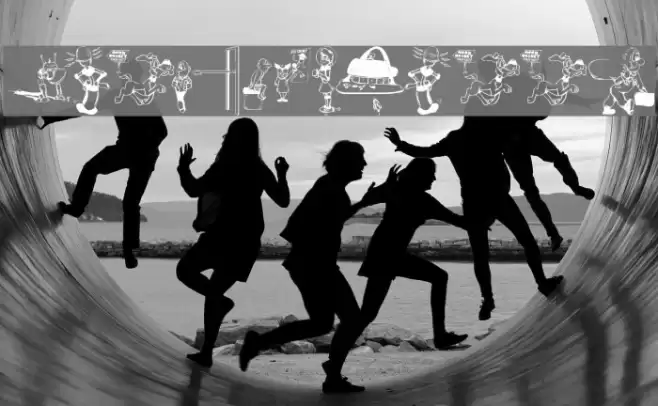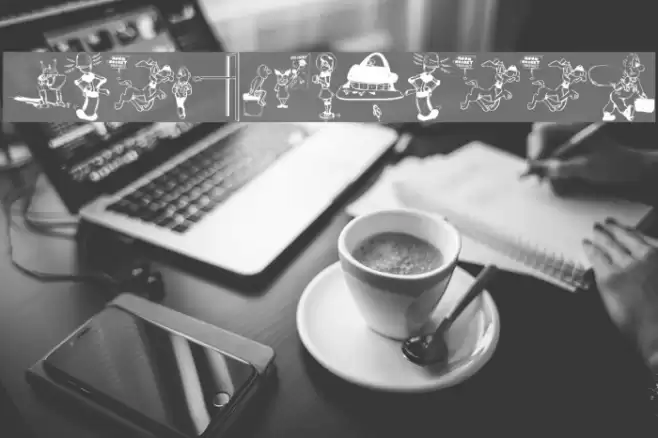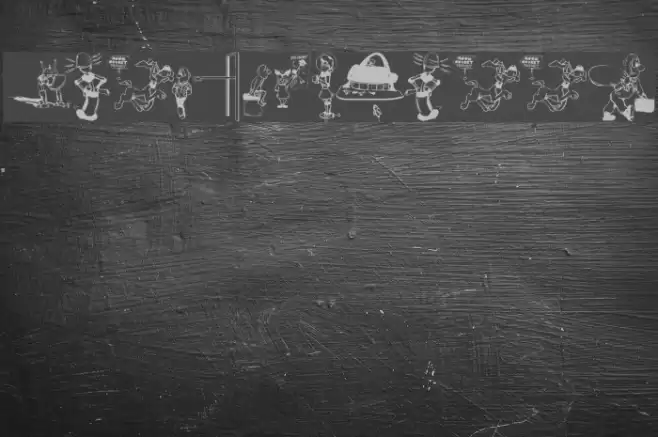
A playful, cartoon-style decorative font featuring whimsical illustrations of characters, spaceships, and humorous scenes in place of traditional letterforms and symbols.
Cartoonish, illustrated font with space and character themes from Uncategorized fonts.
- Proposed Projects: Children’s books, party invitations, comic strips, themed posters, educational materials.
- Overall Style: Decorative, Playful, Whimsical
- Use Case: Logos, Headlines, Posters, Themed graphics